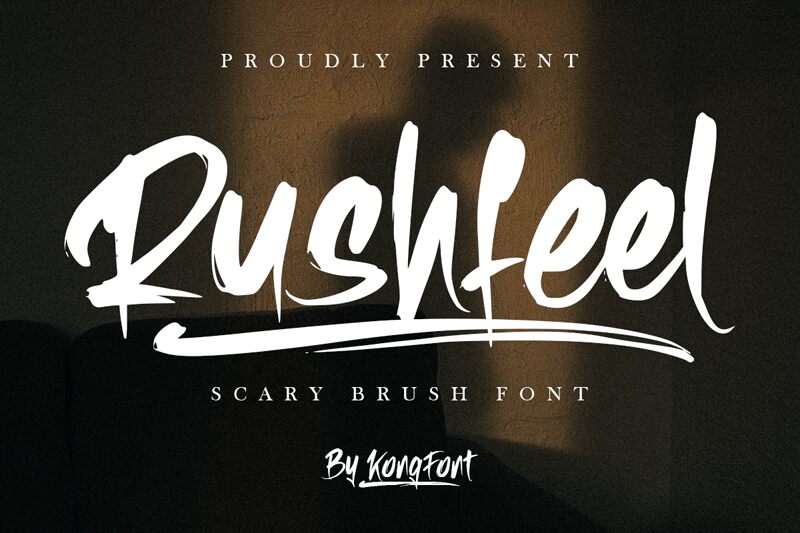
Rushfeel
Rushfeel, a captivating brush font designed by Kong Font, exudes a sense of energy and dynamism. With its bold strokes and organic flow, it adds a touch of creativity to any project. Its natural imperfections give it an authentic handcrafted charm, making it ideal for logos, branding materials, and packaging designs. Whether you're working on fashion campaigns or coffee shop menus, Rushfeel's semi-bold typeface effortlessly captures attention and infuses your creations with an artistic flair. Let Rushfeel be the brush that paints your designs with passion and excitement.